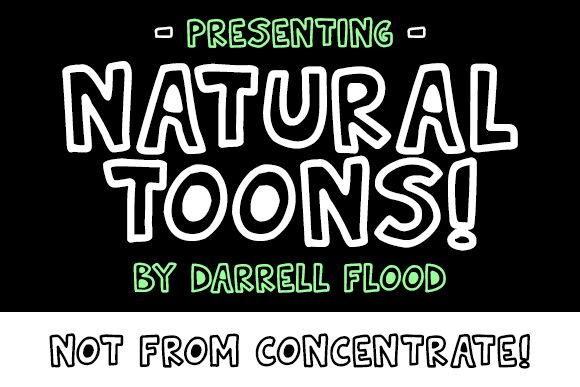
Natural Toons
Natural Toons is a delightful display font that exudes a whimsical, cartoon-inspired aesthetic. Designed by Hawtpixel, this font boasts a distinctive outlined style that lends a playful, hand-drawn charm to any text it adorns. The bold, expressive letterforms and organic shapes capture a sense of playfulness, making Natural Toons an excellent choice for children's content, branding, and creative projects that require a visually engaging and approachable typeface.
This font's versatility extends beyond its visual appeal, as it can be effectively utilized in a variety of design contexts, from advertising campaigns and packaging to digital interfaces and educational materials. Its ability to immediately convey a lighthearted, friendly tone makes Natural Toons an invaluable asset for designers seeking to craft memorable and engaging visual experiences.